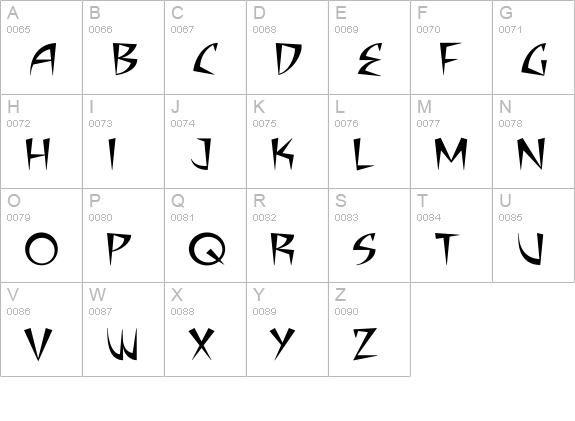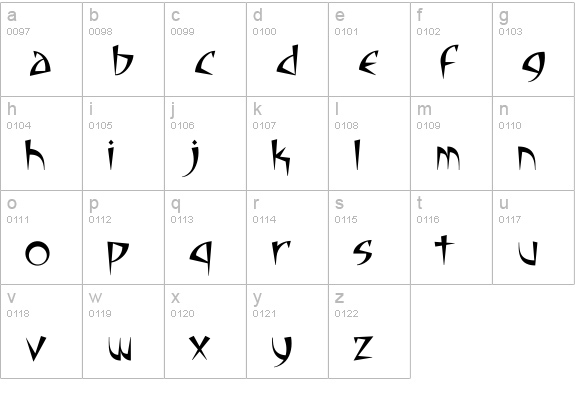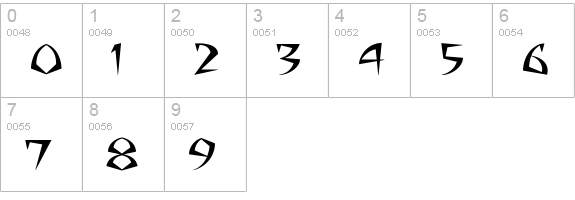
CCAdamantium-Fang Font Details
Below you can preview CCAdamantium-Fang in uppercase [A-Z], lowercase [a-z] and numbers [0-9]. You can also read the author's notes and license information before downloading.
Introducing CCAdamantium-Fang font, a bold and powerful typeface designed to make your designs stand out. With its sharp edges and fierce appearance, this font exudes strength and determination. Perfect for titles, headers, and branding projects that require a touch of boldness. The best part? CCAdamantium-Fang font is available for free download exclusively at FontsMarket.com. Whether you're working on a poster, logo, or website design, this font will add a touch of fierceness to your projects. Download it now and unleash the power of CCAdamantium-Fang in your designs.